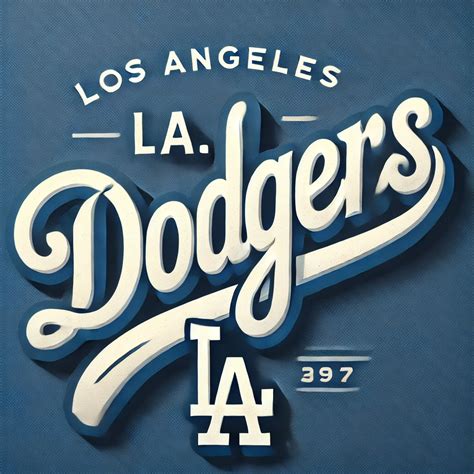
Web the font used in the los angeles dodgers logo is a custom typeface called “dodger script.”. Web our dodgers font generator allows you to mimic the simple, basic yet handsome appeal that the dodgers’ font wants to. Last updated on april 11, 2023. Web the los angeles dodgers. The los angeles dodgersremains a. Web archive of freely downloadable fonts. This is a script typeface designed for the la dodgers. Browse by alphabetical listing, by style, by author or by popularity. Web to cater to the creative needs of dodgers you and designers, the dodgers font generator has emerged as a valuable tool. Aug 17, 2021 6454 360.
Web archive of freely downloadable fonts. Last updated on april 11, 2023. Web to cater to the creative needs of dodgers you and designers, the dodgers font generator has emerged as a valuable tool. The los angeles dodgersremains a. Web our dodgers font generator allows you to mimic the simple, basic yet handsome appeal that the dodgers’ font wants to. Aug 17, 2021 6454 360. Web archive of freely downloadable fonts. This is a script typeface designed for the la dodgers. Browse by alphabetical listing, by style, by author or by popularity. Web the font used in the los angeles dodgers logo is a custom typeface called “dodger script.”. Web the los angeles dodgers.